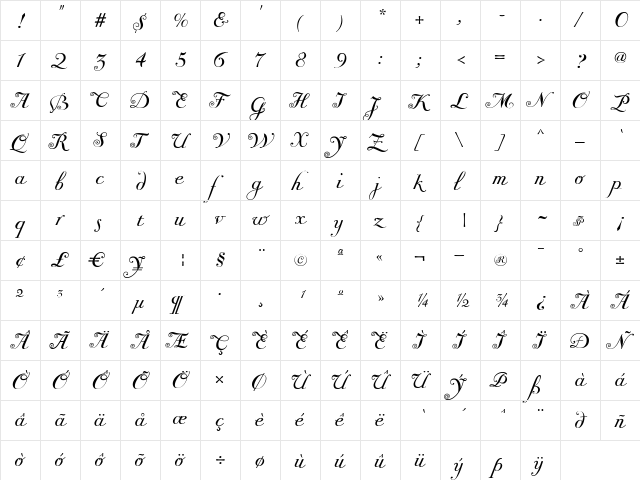
GiambattistaTwo Script
| Style | Script |
Design Context for GiambattistaTwo Typeface
GiambattistaTwo flows with the natural rhythm of handwritten lettering, making it ideal for designs that call for warmth and personal expression.